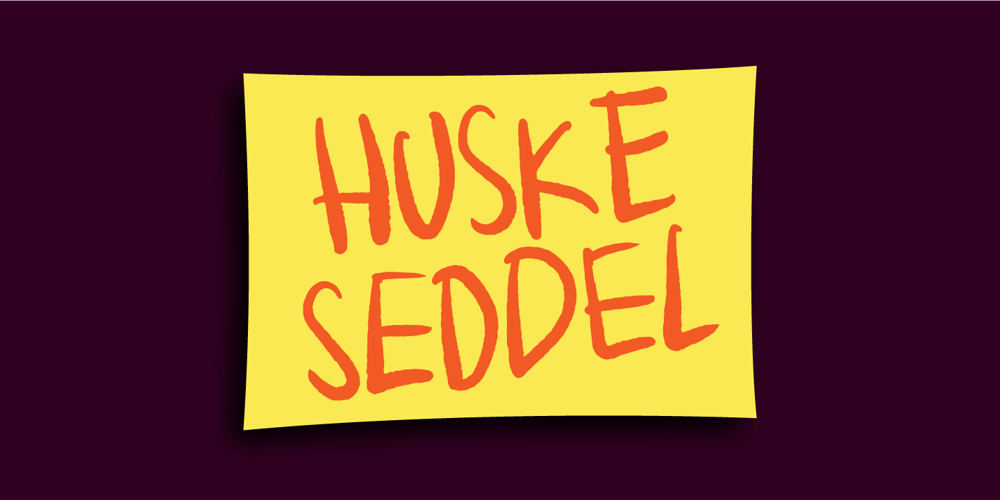
Huskeseddel Font Family was designed by Jakob Fischer and published by Bogstav. Huskeseddel contains 2 styles and family package options. Huskeseddel is to-do list or memo in English. If you not already guessed it, the font is based upon my own handwriting. Actually not my everyday handwriting, but the kind I use when I make my to-do lists.But it wouldn’t look right with a simple font with the same letters repeating all the time, and that’s why I added 12 different hastily written versions of each letter. These 12 different versions cycle as you type, making your text look…well, like hastily written letters…you’ll have to take a real close look to find out that you are looking at a font, and not a genuine hastily written to-do list! ๐